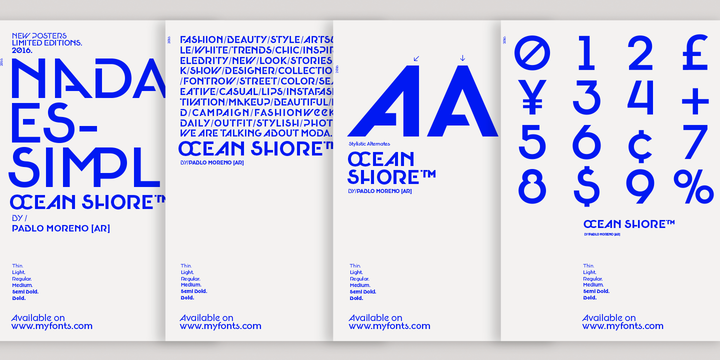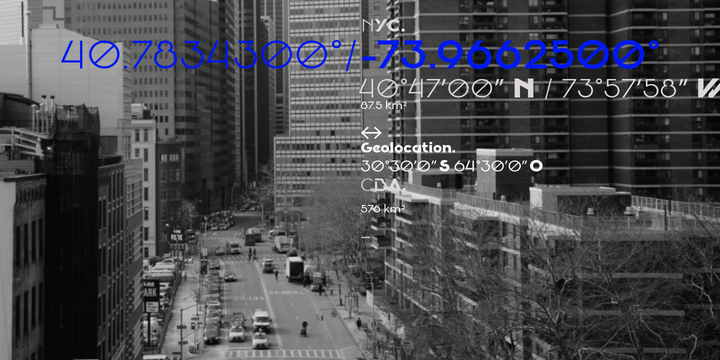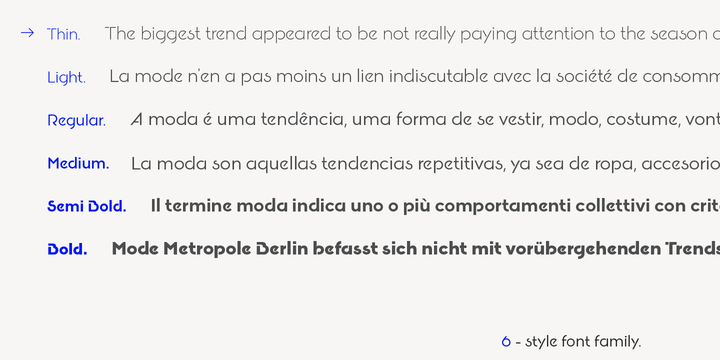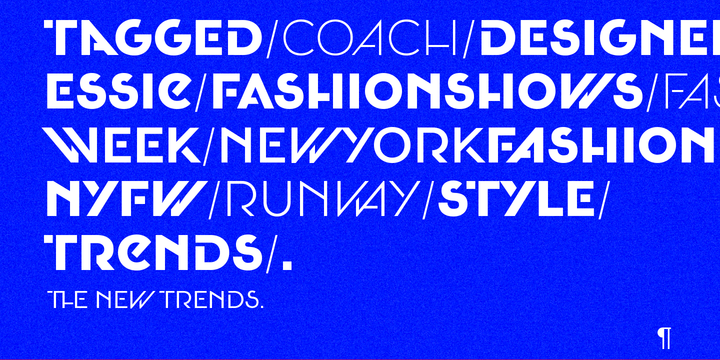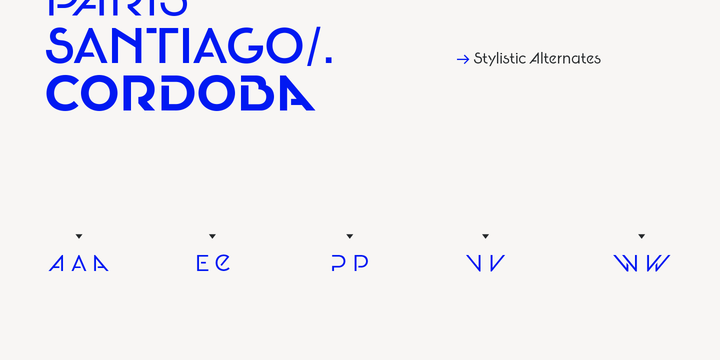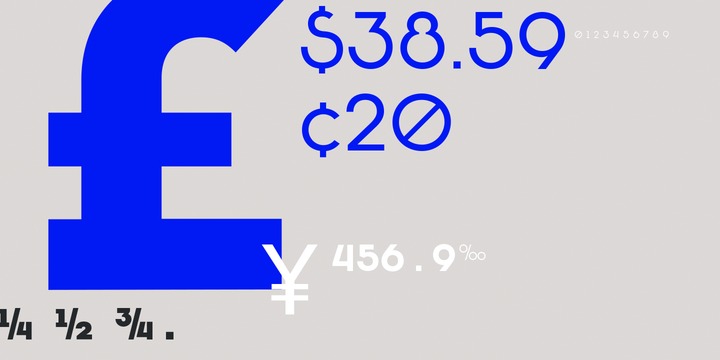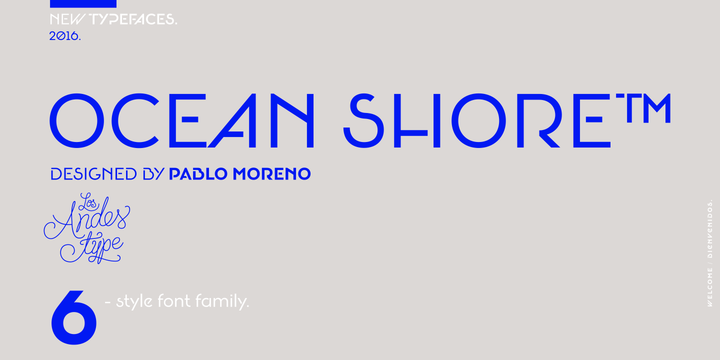
Oceanshore Font Family
Oceanshore is a modern display sans typeface with stencil characteristics and based on geometric shapes. That when combined gives the font a retro-futuristic look and makes it ideal for big and catchy editorial headlines.
The family includes 6 styles, from Thin to Bold, each of them in a wide variety of alternates and ligatures that provides the users with a number of choices when composing. Each font comprises more than 550 characters and supports over 200 Latin languages.